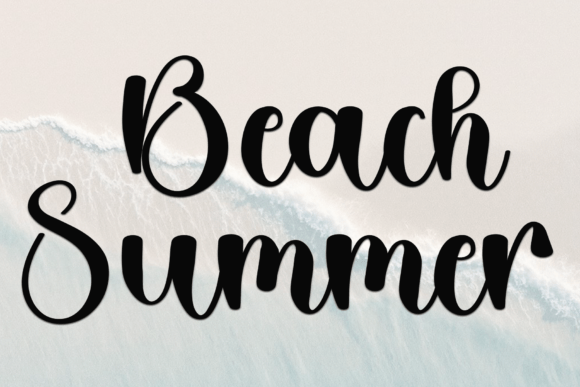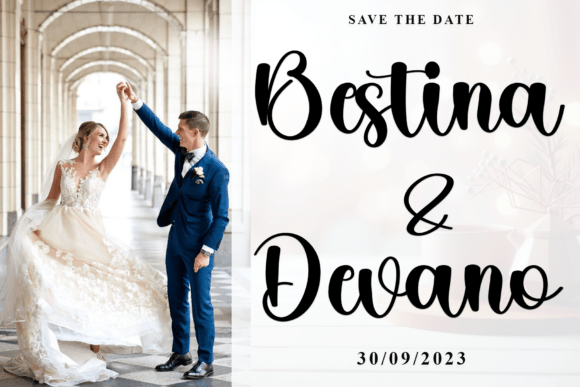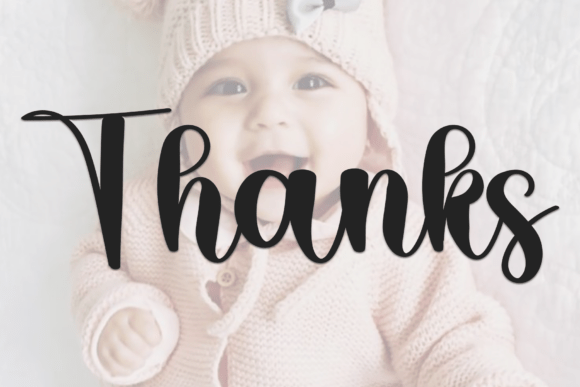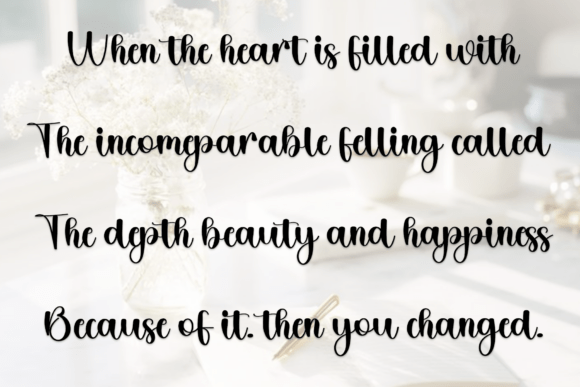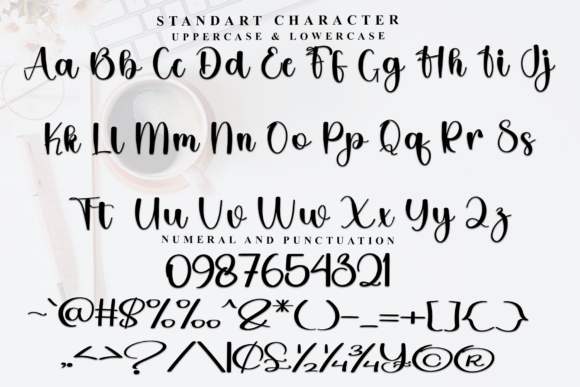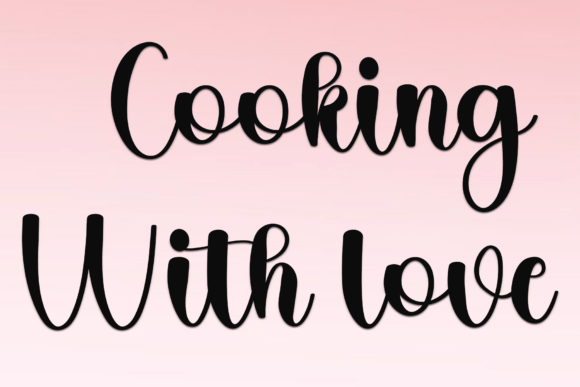
The Perfect Font for Your Next Design Project
Remember the first time you saw a handwritten font that made you smile? Maybe it was on a vintage sign, a hand-drawn logo, or a quirky advertisement. Whatever the moment, it’s safe to say that a well-crafted handwritten font can evoke emotions and leave a lasting impression. As designers, we’re always on the lookout for that special something to give our projects an extra oomph. Enter the Baby Chubby Font, a gorgeous and bold handwritten font designed to add a touch of style and nostalgia to your headlines and logotype projects.
With its strong, confident, and dynamic feel, the Baby Chubby Font is a valuable addition to any designer’s toolkit. Whether you’re working on a branding project, creating a social media campaign, or simply want to add some personality to your designs, this font is sure to deliver. Its versatility and charm make it an ideal choice for designers who want to create visually appealing and memorable designs.
Baby Chubby Font Key Features
- Font Family: Baby Chubby Font is a unique, hand-drawn font designed to resemble a baby’s handwriting.
- Unique Characteristics: Features playful, cursive strokes and rounded edges, giving it a charming, infantile feel.
Baby Chubby Font Review
When I first laid eyes on Baby Chubby Font, I was immediately drawn to its playful and whimsical vibe ✨. The font is perfect for creating a nursery or kids’ section in any design project, and its rounded edges give it a soft, approachable feel. The font also includes a range of weights, from light to bold, which makes it easy to use in a variety of contexts.
One of the standout features of Baby Chubby Font is its versatility ✨. It can be used for a range of purposes, from headings and titles to body text and even logos. The font is also highly customizable, with options to adjust the spacing and size to suit your needs.
- ⚠️ The font may not be suitable for professional or formal designs, as its playful nature may come across as immature or unprofessional.
- ⚠️ The font is not ideal for use in small sizes, as the rounded edges can become distorted and difficult to read.
Overall, I think Baby Chubby Font is a great addition to any designer’s toolkit ✨. While it may have some limitations, its versatility and customizability make it a great choice for a range of design projects. With a little creativity, you can use this font to create some truly unique and eye-catching designs.
Tips for Getting the Most Out of Baby Chubby Font
Here are some tips to help you get the most out of Baby Chubby Font:
- Use it for playful and whimsical designs.
- Pair it with bold or bright colors to create a fun and eye-catching effect.
Here are some common use cases for Baby Chubby Font:
- Food and drink branding (e.g. bakery, cafe, or ice cream shop).
- Playful advertisements and promotional materials.
Alternatives to Baby Chubby Font
Great Vibes is a modern, elegant script font perfect for titles and headings. It’s great for designers who want a sophisticated and playful feel to their designs. Great Vibes is more refined and polished compared to Baby Chubby Font, making it ideal for formal and professional projects.
Lobster is a fun, casual script font ideal for casual and creative projects. It’s great for designers who want to add a touch of playfulness to their designs. Lobster is more casual and laid-back compared to Baby Chubby Font, making it perfect for social media posts, advertisements, and other informal projects.